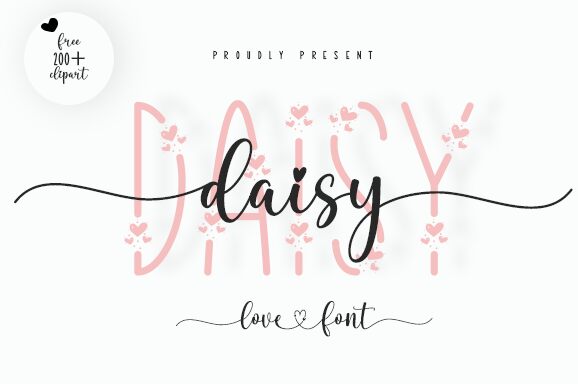
Daisy, a creation by Fillo Graphic, is a font that captures the whimsical charm of handwritten notes paired with the elegance of Valentine-style cursive. Its semi-light weight lends it an airy, delicate feel that's as refreshing as its namesake flower. The fluidity of Daisy's characters suggests a personal touch, making it an excellent choice for invitations, greeting cards, and branding projects that require a blend of sophistication and warmth.
The artistic loops and soft curves of this typeface evoke romanticism and intimacy. It's versatile enough to enhance the visual storytelling of any project while maintaining readability-a balancing act not easily achieved in more stylized fonts. With Daisy's playful yet refined appearance, designers have at their fingertips an adaptable font ideal for conveying messages with heartfelt emotion and subtle flair.